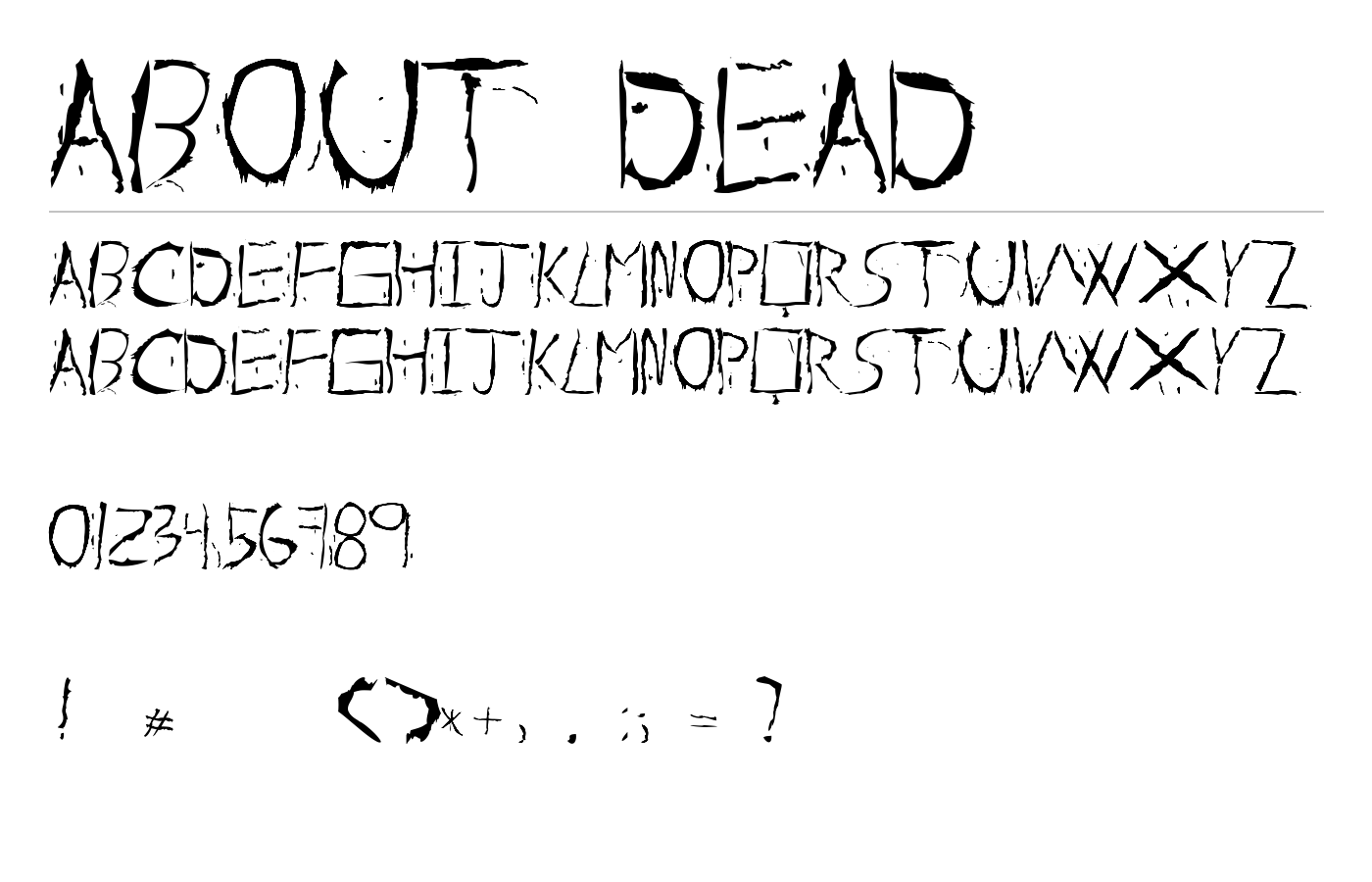
About Dead Font is a grungy, distressed sans serif typeface with a rough, hand-drawn appearance that evokes an eerie, unsettling mood. Its irregular strokes and jagged edges give it a raw, textured feel, making it ideal for horror-themed design, edgy posters, or any project seeking a bold, rebellious look with personality. This font works best in large display settings where its unique, chaotic details can be fully appreciated.
About Dead Font
About About Dead Font
| Font family | About Dead Font |